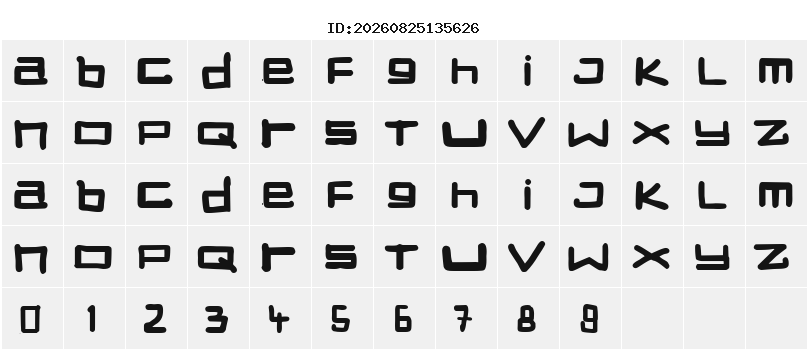
STUCK Preview
• Font Name: STUCK
• Full Font Name: STUCK
About STUCK.ttf
STUCK.ttf is a modern, elegant sans-serif font designed for ultimate readability and visual harmony. Perfect for branding, headlines, web design, and print materials.